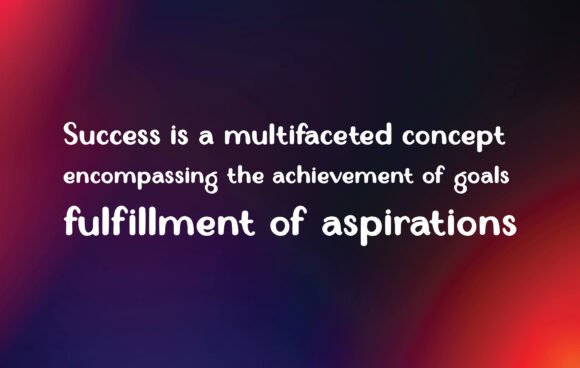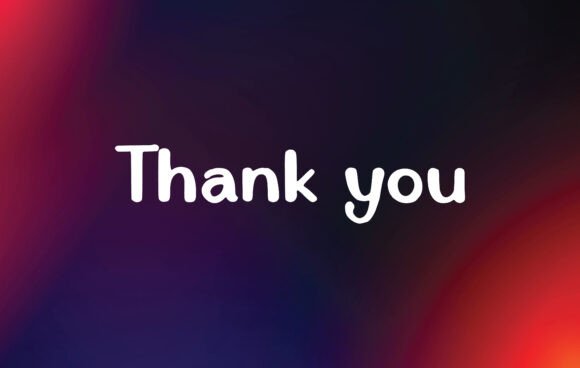
The Magic of Chester Font: Elevate Your Designs with this Beautiful Handwritten Font
I’ll never forget the time I was working on a branding project for a trendy coffee shop. My client wanted a logo that was both modern and elegant, but I was struggling to find the perfect font. That was until I stumbled upon Chester Font. It was love at first sight! ⨠This lovely and beautiful handwritten font has the potential to take your creative ideas to the highest level, making it the best choice for creating eye-catching logos, branding, and quotes.
An Honest Review of Chester Font
- š« Unique and elegant handwritten style that adds a touch of sophistication to any design
- ā Highly versatile and adaptable to various design projects, from logos to social media graphics
- šØ Beautifully crafted with attention to detail, making it perfect for high-end branding and designs
- š Excellent for creating quotes, posters, and other typography-focused designs
While Chester Font is an amazing font, there are a few things to keep in mind š¤:
- ā ļø Some characters may not work well in very small sizes, so it’s best to use it at larger sizes (20px and above)
- ā ļø Limited availability of language support, so make sure to check the font’s capabilities before using it for multilingual projects
A Practical Guide to Using Chester Font
The Backstory of Chester Font
Chester Font was designed by a talented type designer who wanted to create a font that was both elegant and approachable. Inspired by traditional handwritten scripts, Chester Font is the result of careful craftsmanship and attention to detail. The font’s creator aimed to design a font that would be perfect for creative projects, from logos to social media graphics.
| Font Name | Chester Font |
| Author | moonlight craft |
Q: What type of projects is Chester Font best suited for?
A: Chester Font is perfect for creating eye-catching logos, branding, and quotes. It’s also great for social media graphics, posters, and other typography-focused designs.
Q: Is Chester Font available in different languages?
A: Chester Font may have limited language support, so it’s best to check the font’s capabilities before using it for multilingual projects.